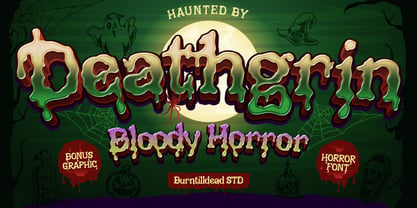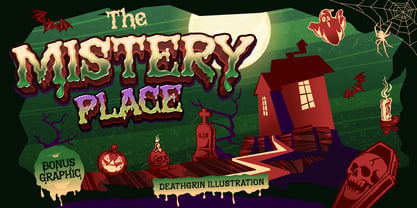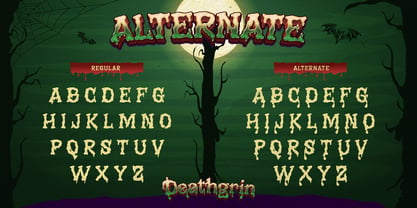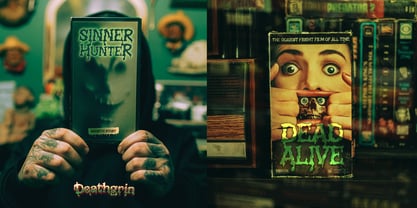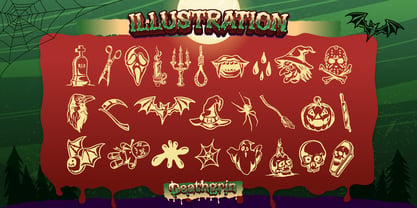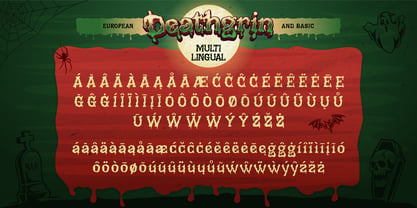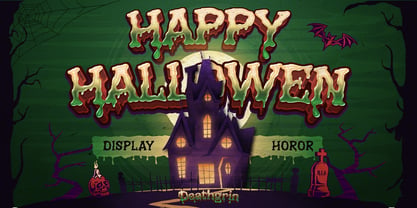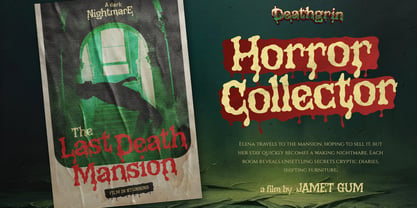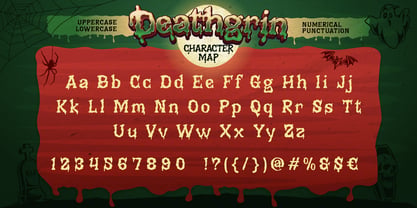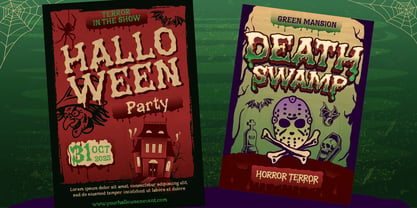
Deathgrin
Proudly present, Deathgrin, a bold and creepy horror typeface designed to bring chills and thrills to your creative projects. The hand-drawn, irregular letterforms ooze with a bloody, slimy texture that perfectly captures the spirit of Halloween and spooky aesthetics. Each character looks like it was scratched or melted into shape — giving your titles and headlines an intense, haunted energy.
What makes Deathgrin even more exciting is the bonus illustration pack included. These hand-drawn spooky icons — from witches, bats, pumpkins, coffins, to dripping candles and eerie skulls — add extra horror flavor to your design. Whether you're making posters, stickers, social media content, or packaging, these graphics help you build a complete and cohesive spooky vibe around your typography.
This font isn’t meant to be clean or minimal — it’s chaotic, fun, and terrifying in all the right ways. It’s perfect for haunted house flyers, Halloween party invites, horror movie titles, or anything that needs a dramatic spooky impact.
Features:
• A - Z set (Uppercase & Lowercase)
• Number
• Punctuation
• Multilingual